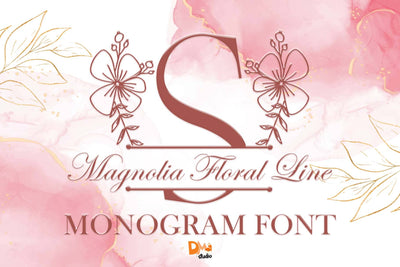
Magnolia Floral Line Monogram
Magnolia Floral Line Monogram – Graceful & Artistic Botanical Font
Magnolia Floral Line Monogram is a refined and elegant monogram font inspired by the natural beauty of magnolia flowers. Each letter is delicately decorated with hand-drawn floral line art, offering a graceful and sophisticated style. Ideal for wedding stationery, personalized branding, boutique packaging, and elegant paper goods, this font brings a touch of nature and timeless charm to every design.
Delicate Magnolia-Inspired Line Art – Each character features elegant floral accents inspired by magnolia blossoms.
Perfect for Elegant & Nature-Themed Projects – Great for wedding invitations, monogram logos, luxury packaging, and personalized gifts.
Clean & Graceful Aesthetic – A blend of minimalism and botanical elegance for timeless appeal.
Full Character Set – Includes uppercase, lowercase, numbers, punctuation, and multilingual support.